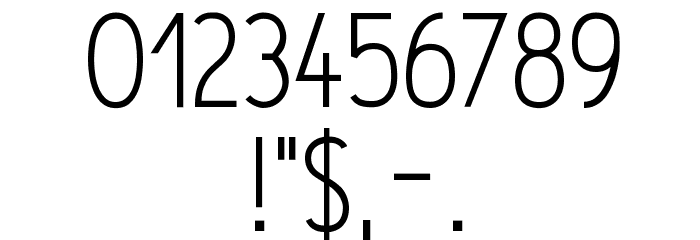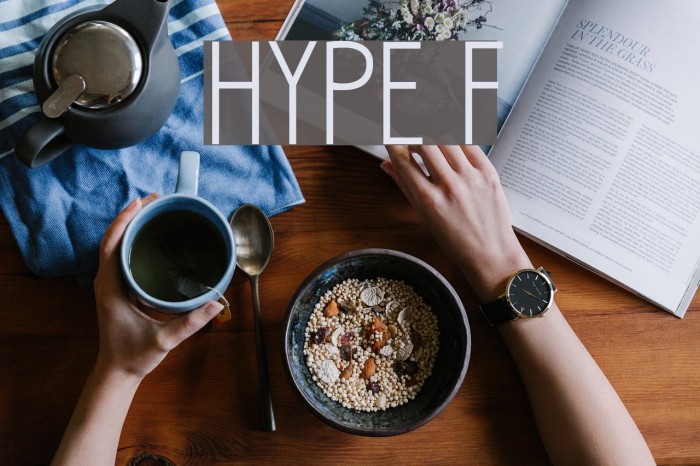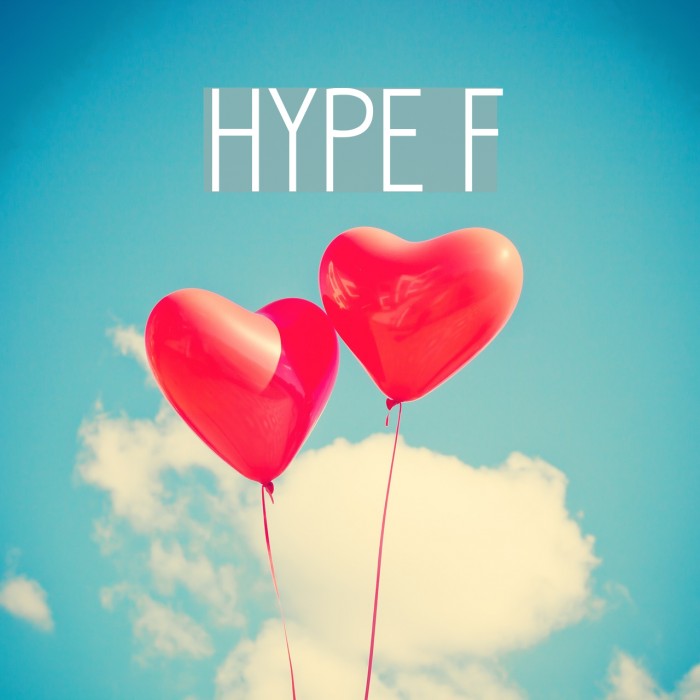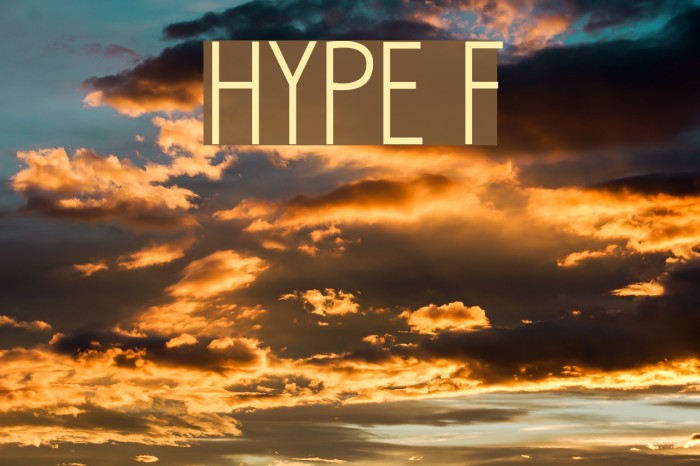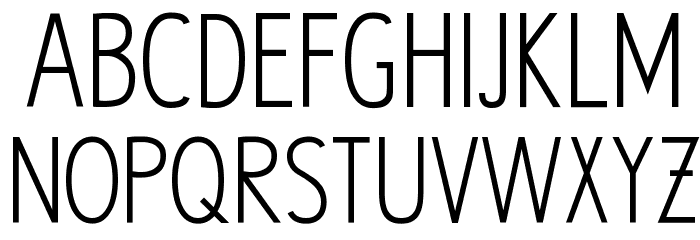
HYPE Font
This font features a clean and modern sans-serif style with uniform stroke widths, providing a sleek and professional appearance. The characters are tall and narrow, contributing to a condensed look that maximizes space efficiency. The uppercase letters are consistent in height, while the lowercase letters maintain a balanced proportion. The numerals are clear and easily distinguishable, making them suitable for various applications. Special characters are simple and integrate seamlessly with the overall design. This font's simplicity and clarity make it versatile for both digital and print media.
A modern, condensed sans-serif font with clean lines and uniform stroke widths.
• Proposed Projects: Ideal for branding, advertising, web design, and editorial layouts where a modern and clean aesthetic is desired.
• Category: Sans-Serif
• Bold: No
• Italic: No
• Weight: Regular
• Width: Condensed
• Character Spacing: Normal
• Contrast: Low
• Overall Style: Modern
• Use Case: Headlines, Body text, Logos